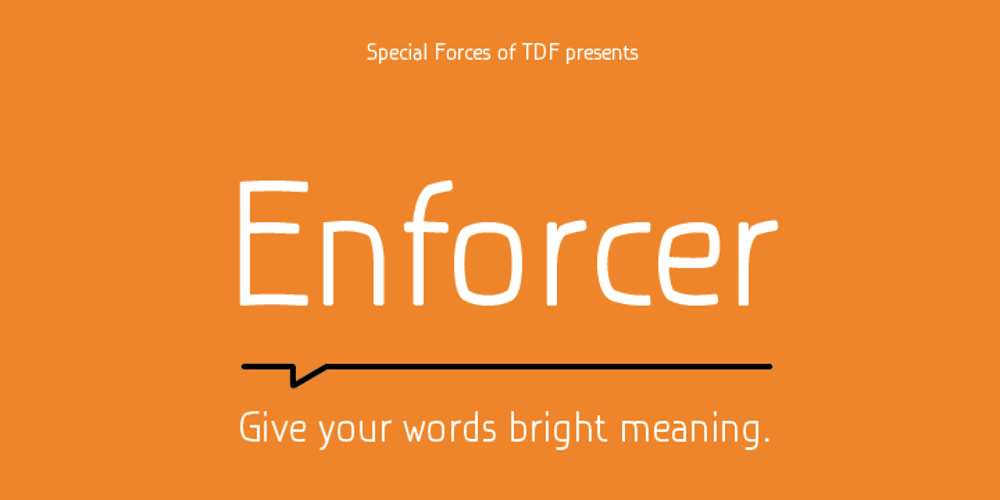
Enforcer
Enforcer font
Enforcer Font Family was designed by Dusan Jelesijevic and published by Tour De Force. Enforcer contains 1 styles and family package options. Modern simple typeface expressing sharp and bright words without need for writing something really smart. Made by Dusan Jelesijevic one day when he left without anything smart to say or write, so he just grabbed a pencil and forced the paper to be cooperative. Someone said that this typeface looks like the ancient Greeks went in present future and used contemporary equipment for writing those letters. It is ideal for branding and avantgarde identities.